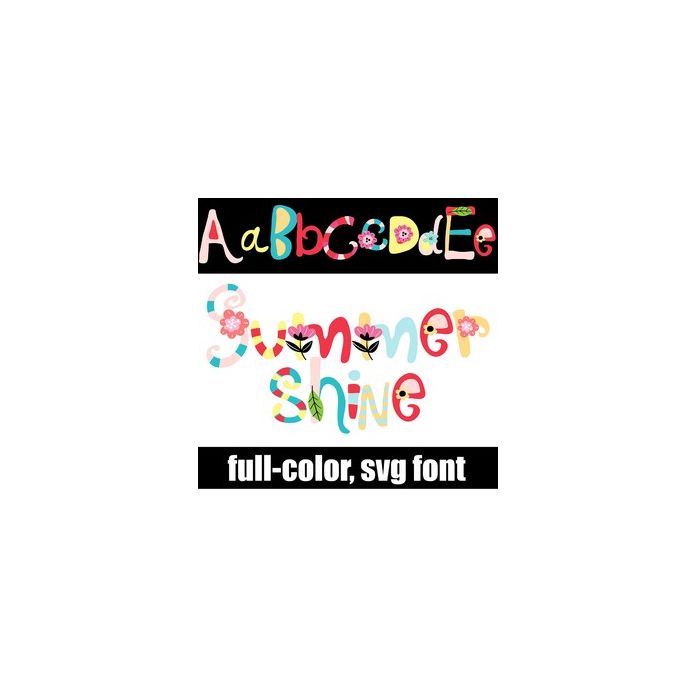
This full-color font features a mix of fun lettering and styles in a summer color palette with some sunshines and flowers. There is an alt case with additional colors that you can access through your system or Silhouette's glyph map.